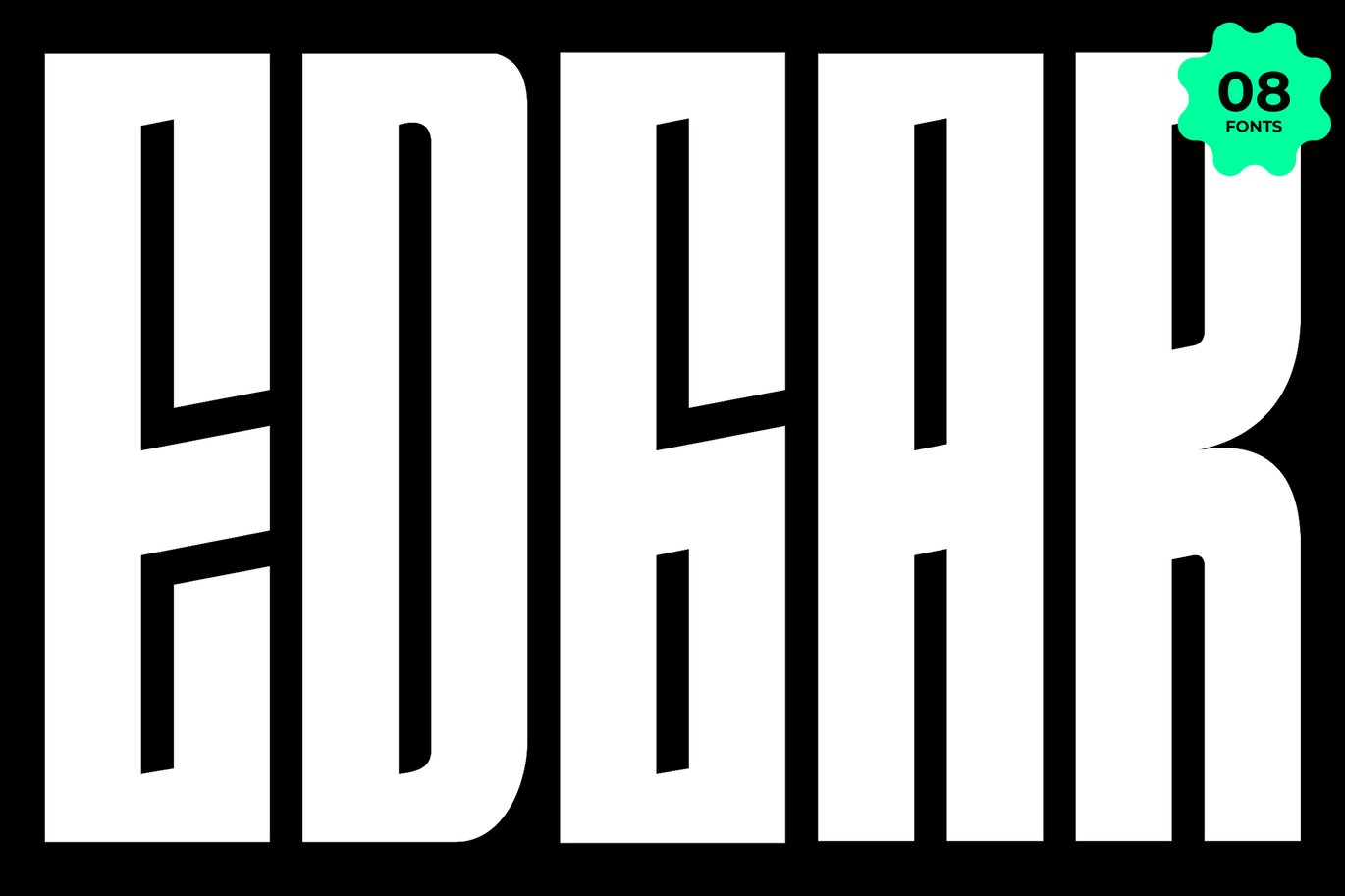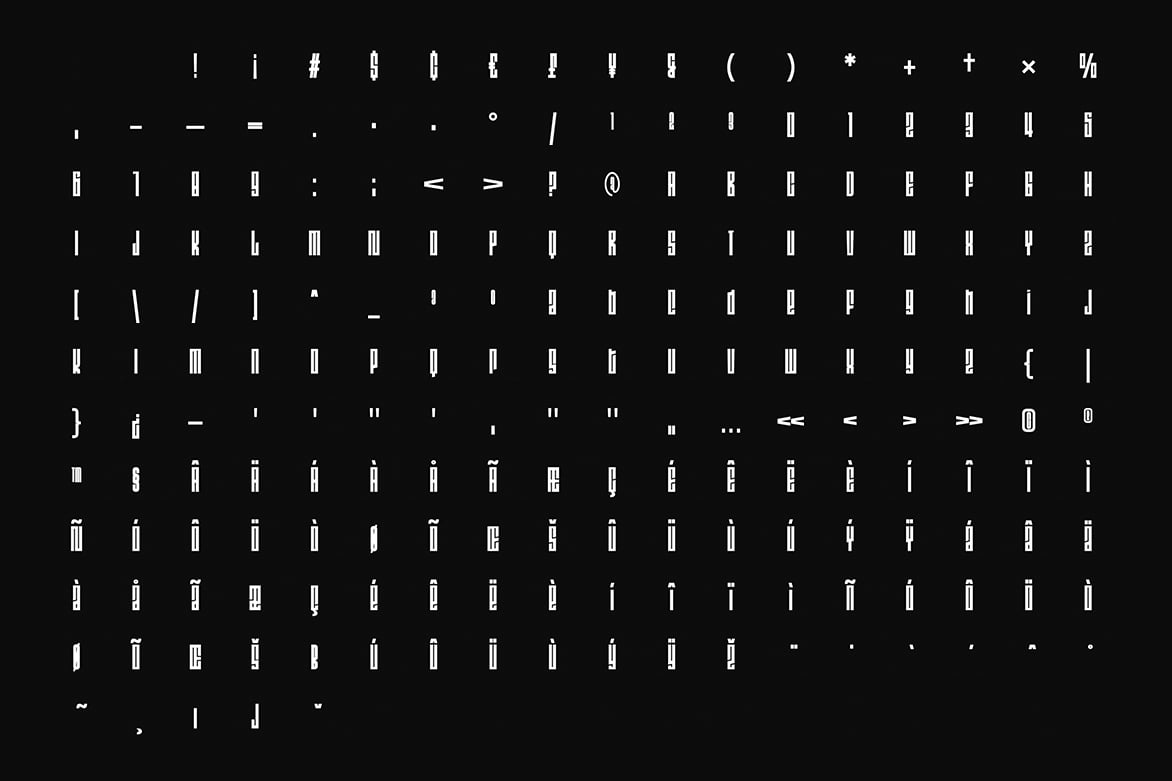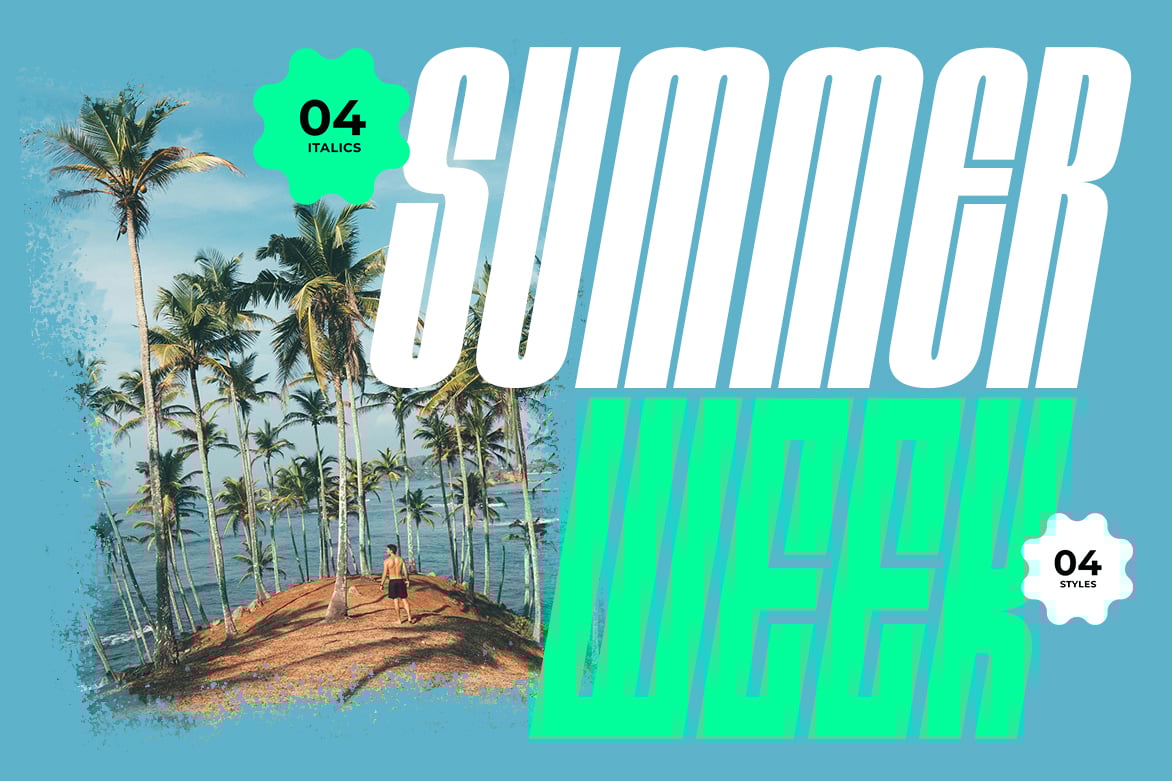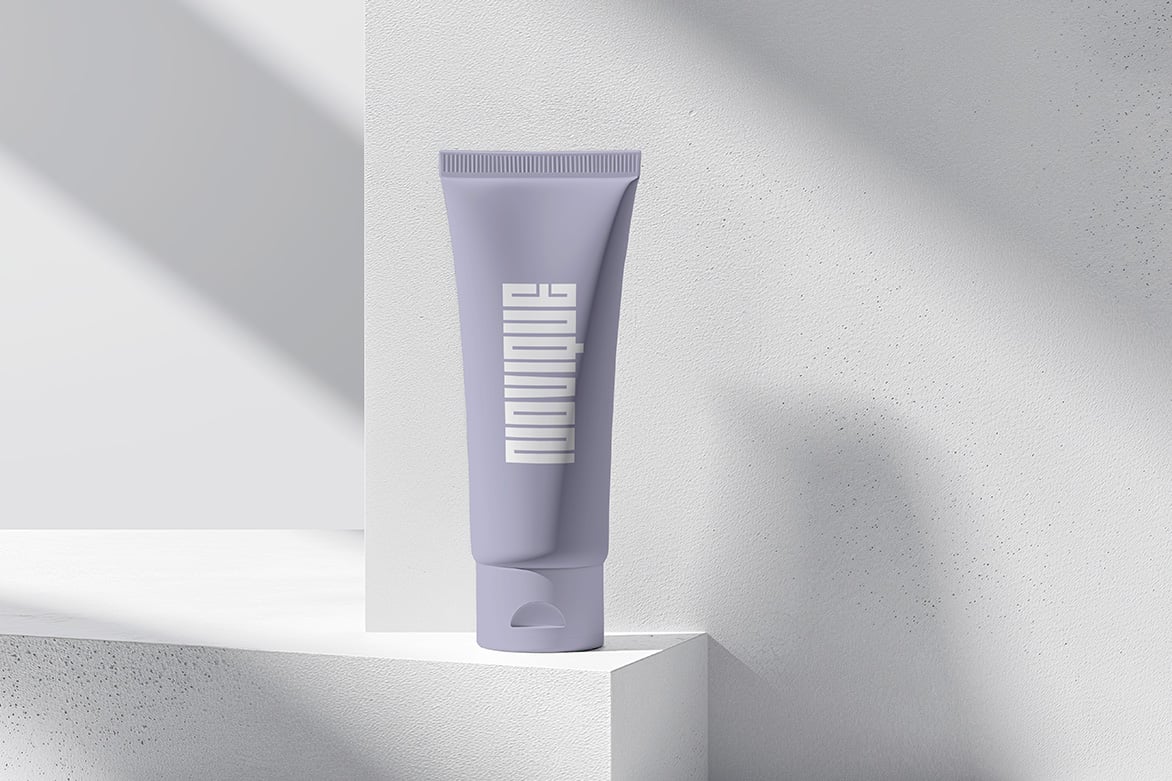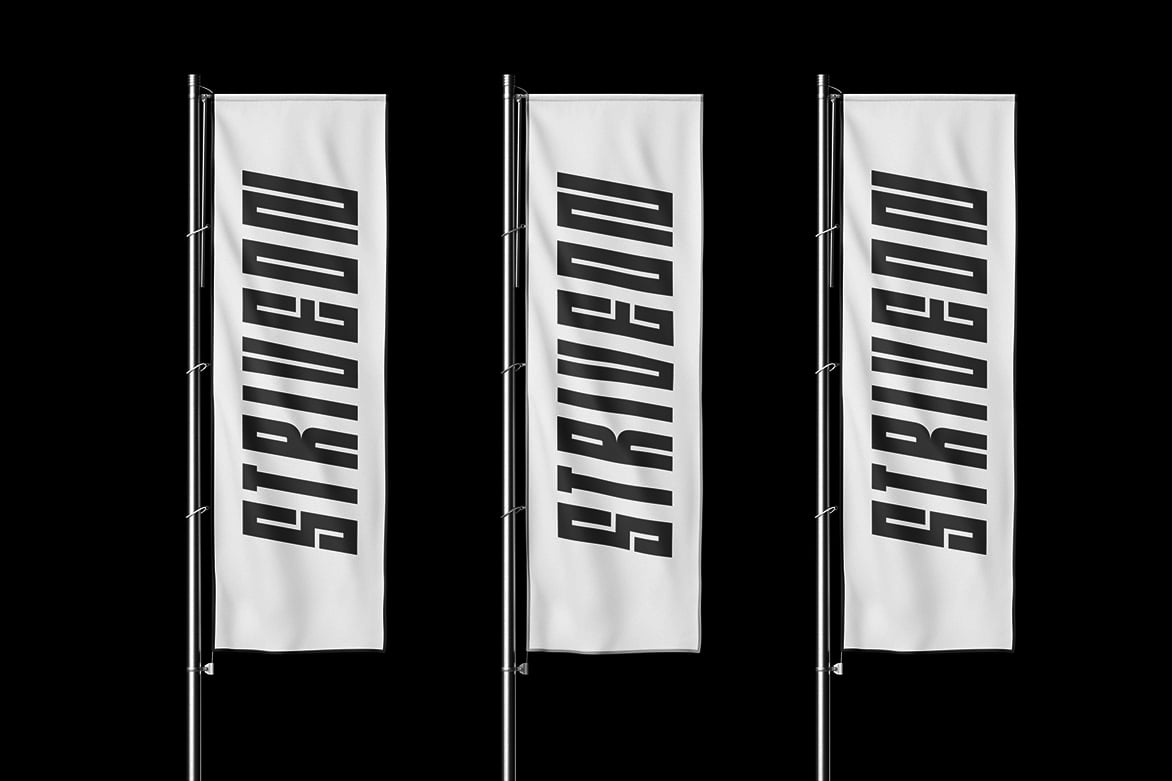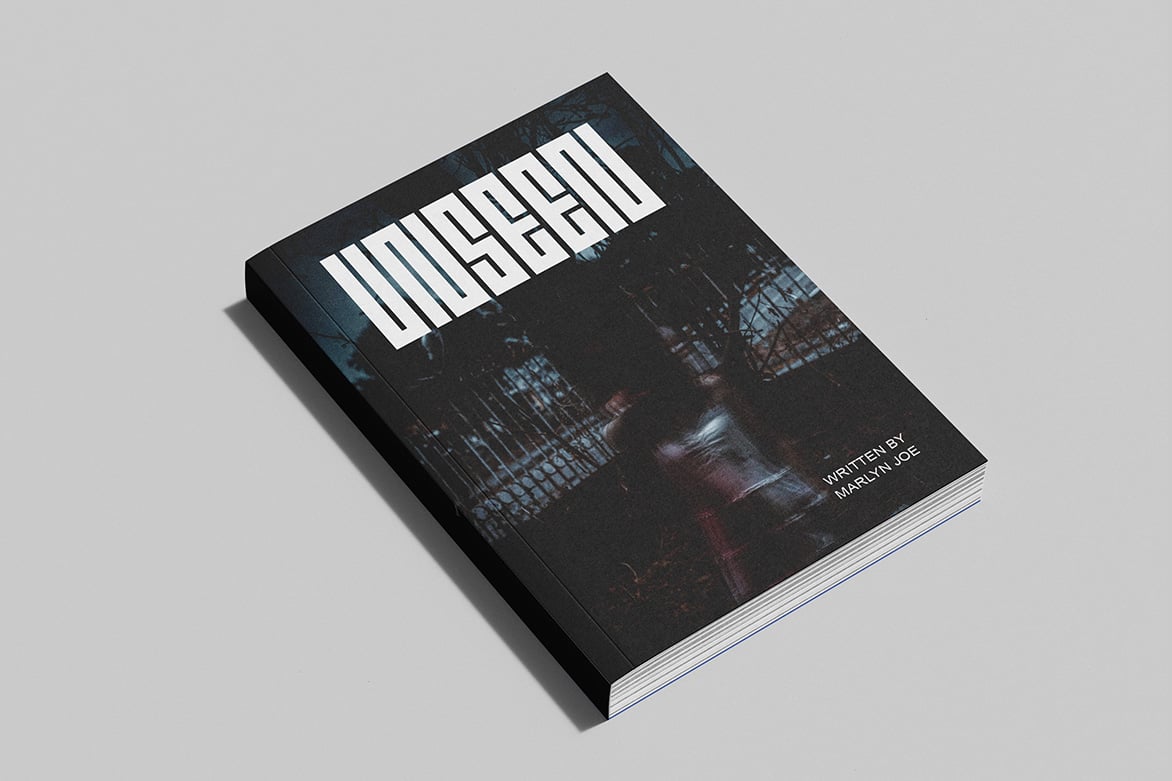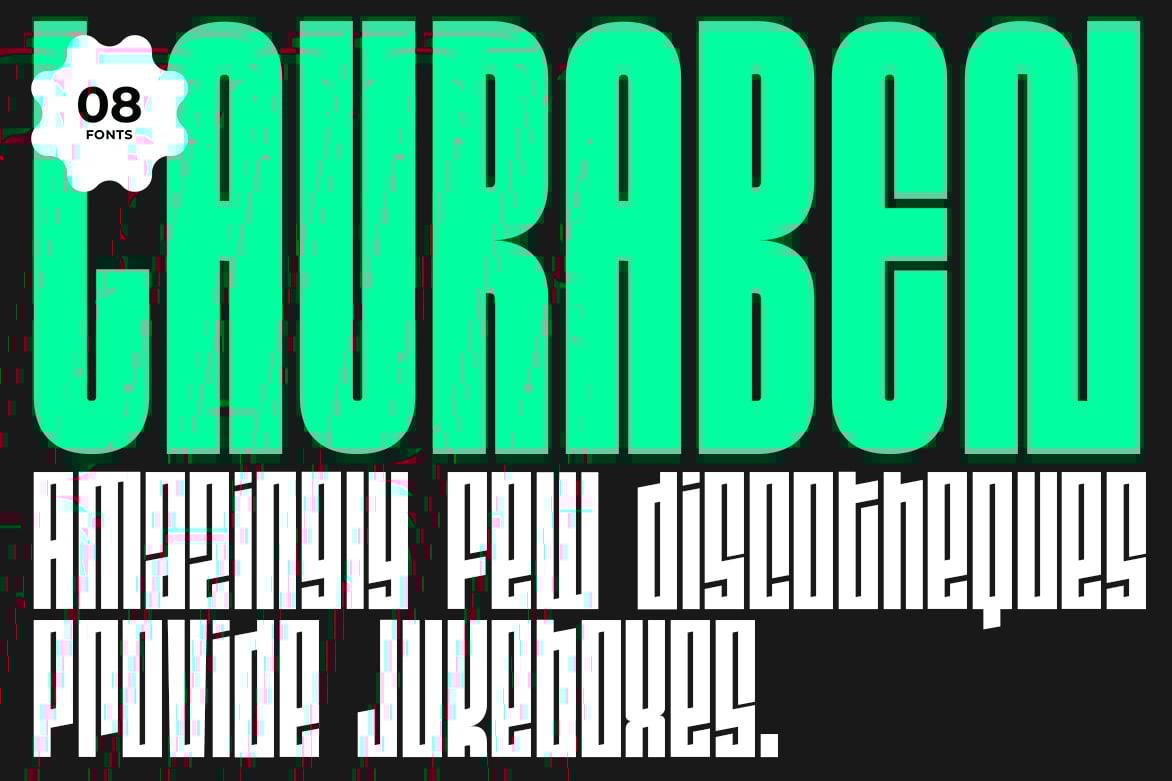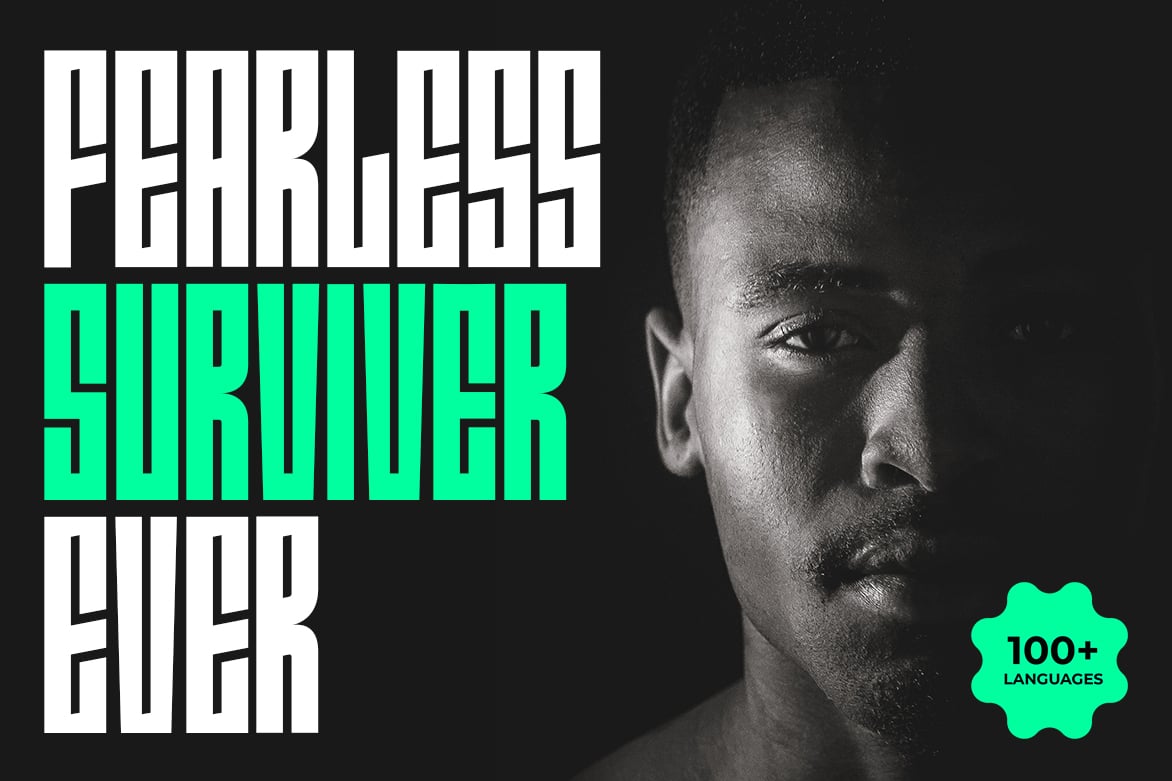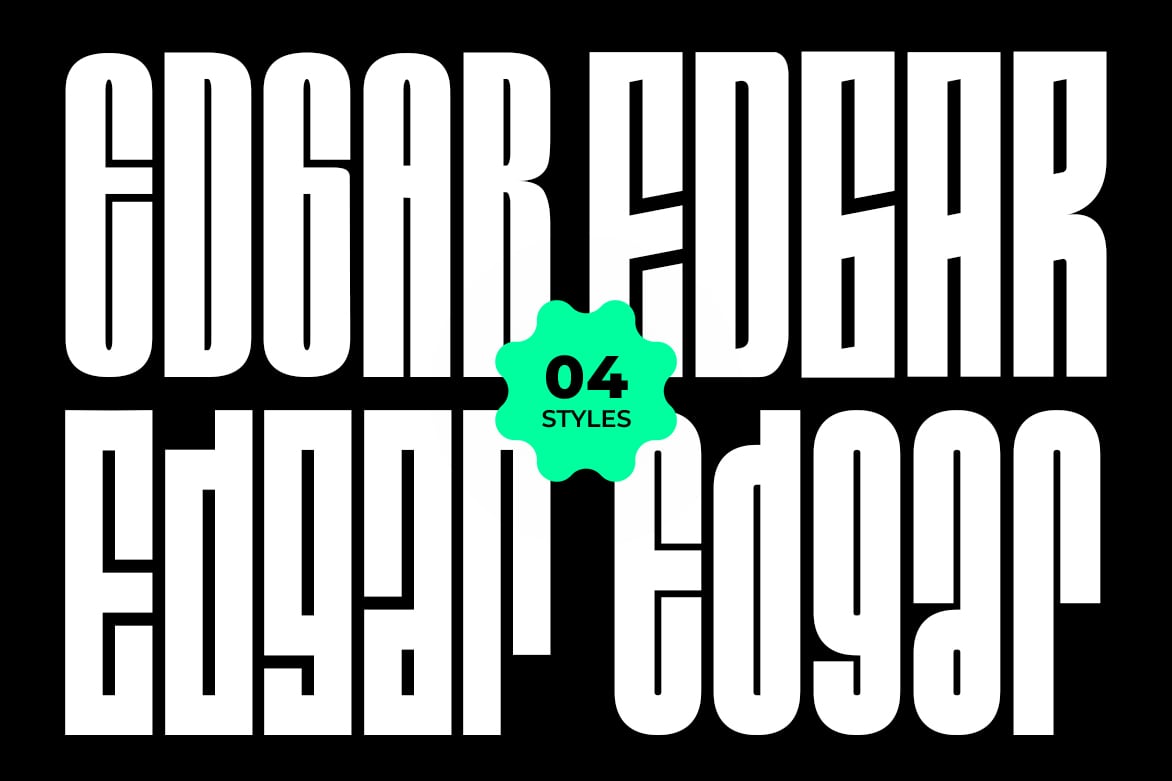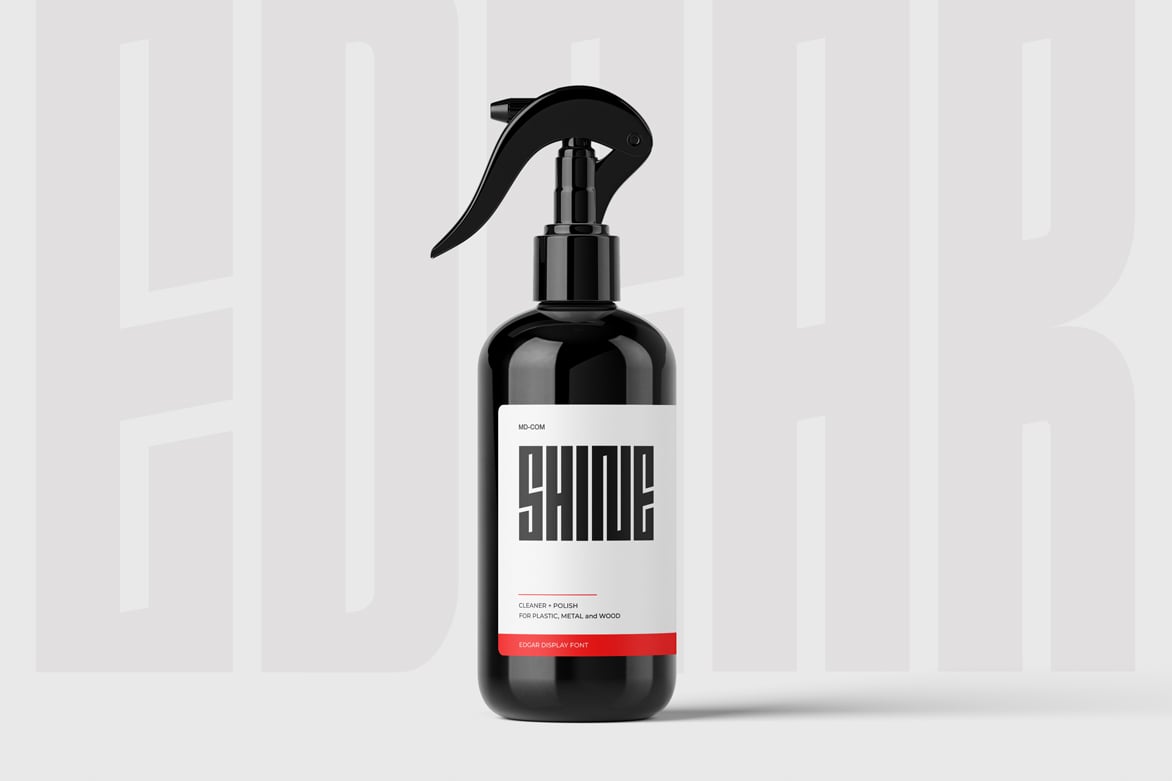
Edgar – Condensed Display Sans-Serif Font family
EDGAR – Display Sans-Serif Font Family
The EDGAR font family is a bold and ultra-condensed display typeface crafted to deliver high visual impact in modern design. With its towering vertical form, sharp internal angles, and brutalist character, EDGAR is made to stand out across posters, branding, album covers, packaging, and digital compositions.
This family includes four distinctive styles — Cosmic, Sigma, Micah, and Normal — each bringing its own structural rhythm and tone. All styles come with matching Italics, giving you a total of 08 fonts to unlock striking typographic combinations.
It supports more than 100 languages, making it a solid and flexible choice for global design projects.